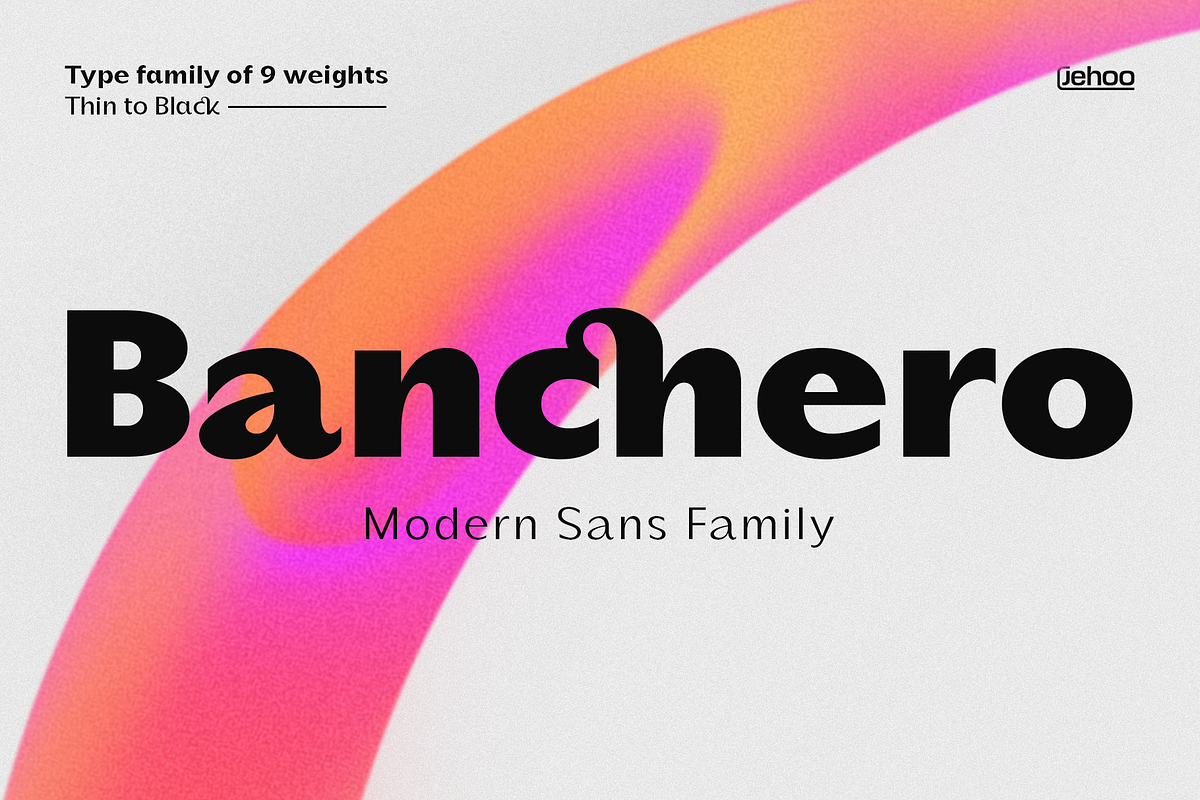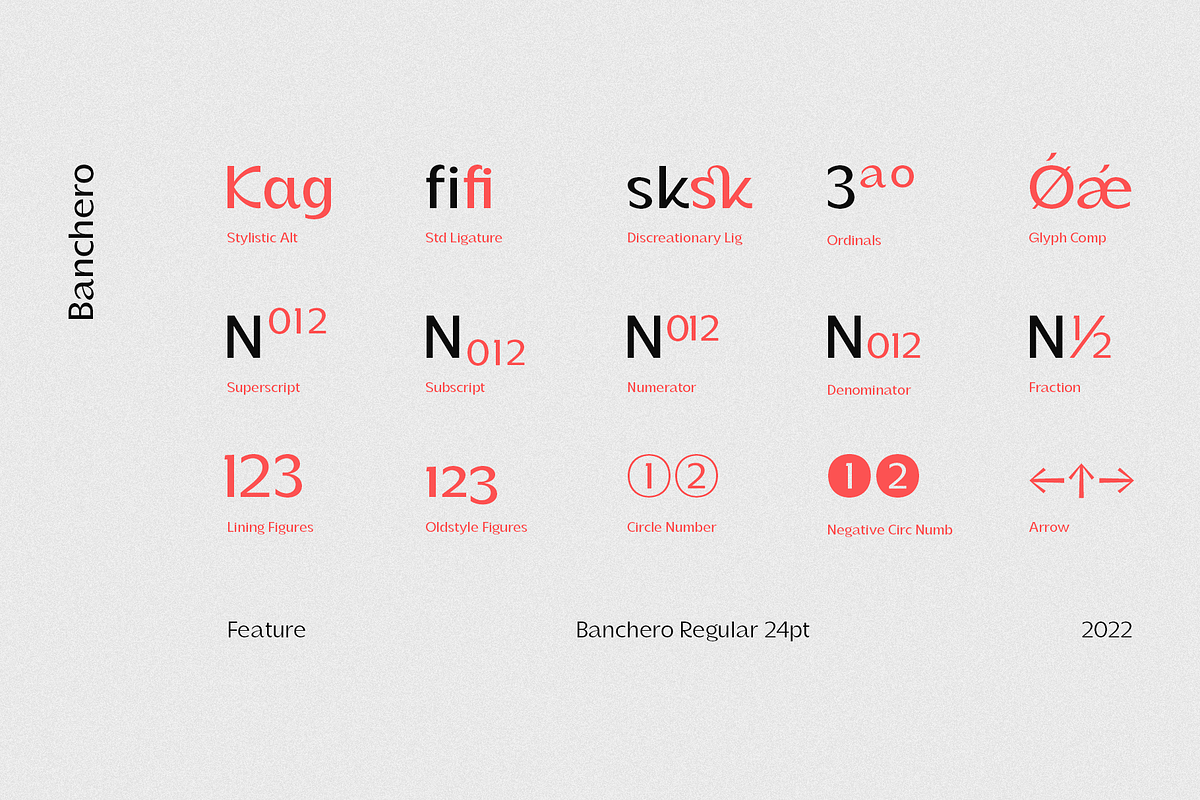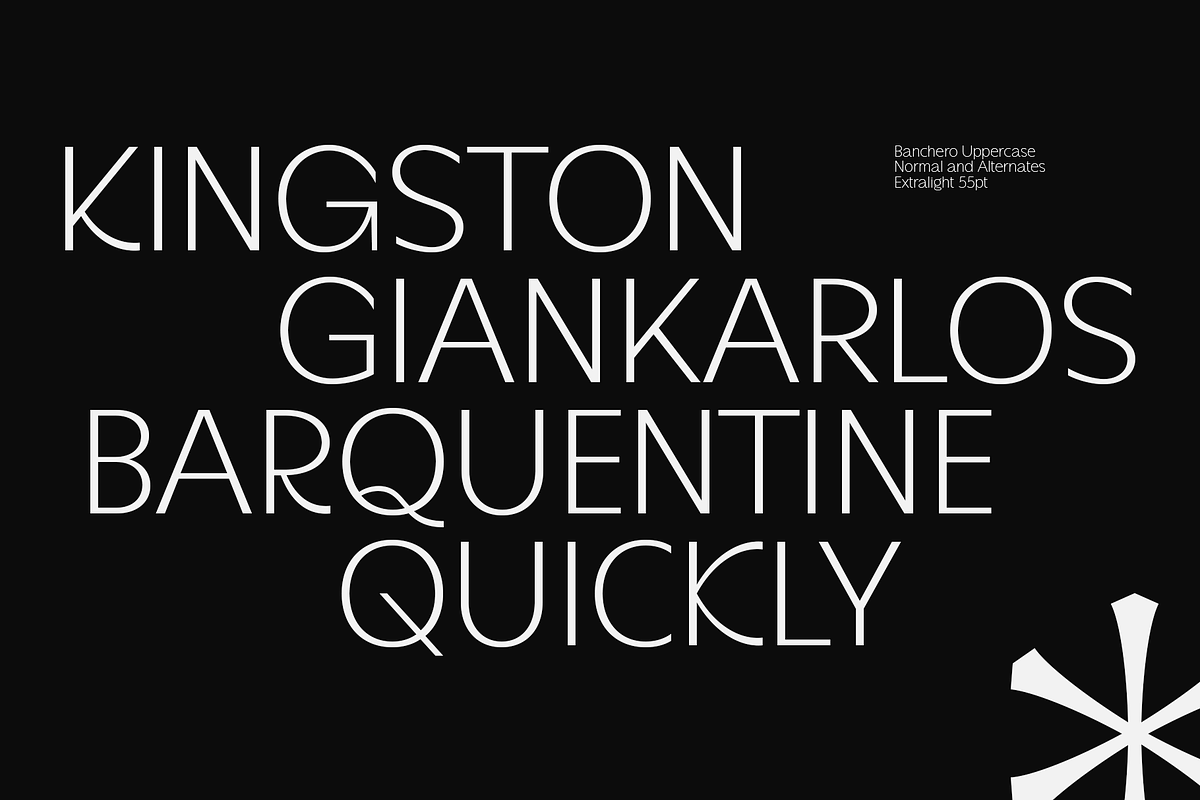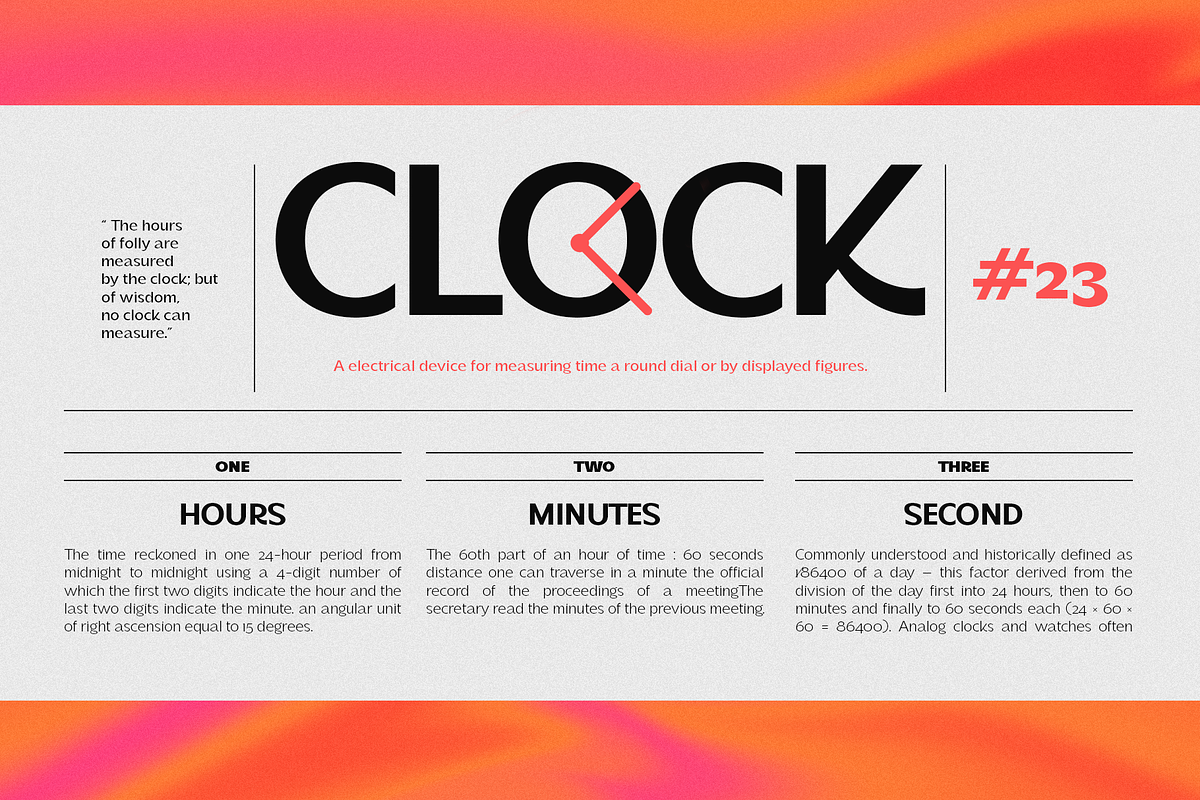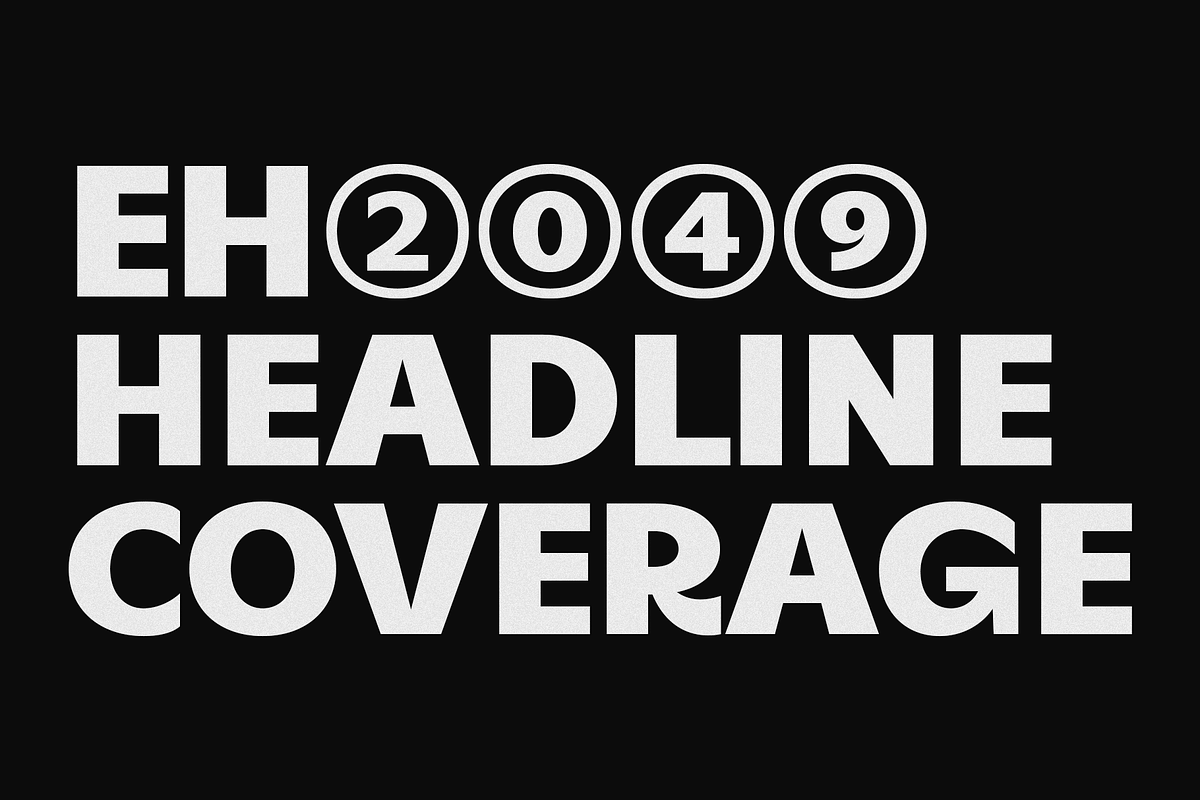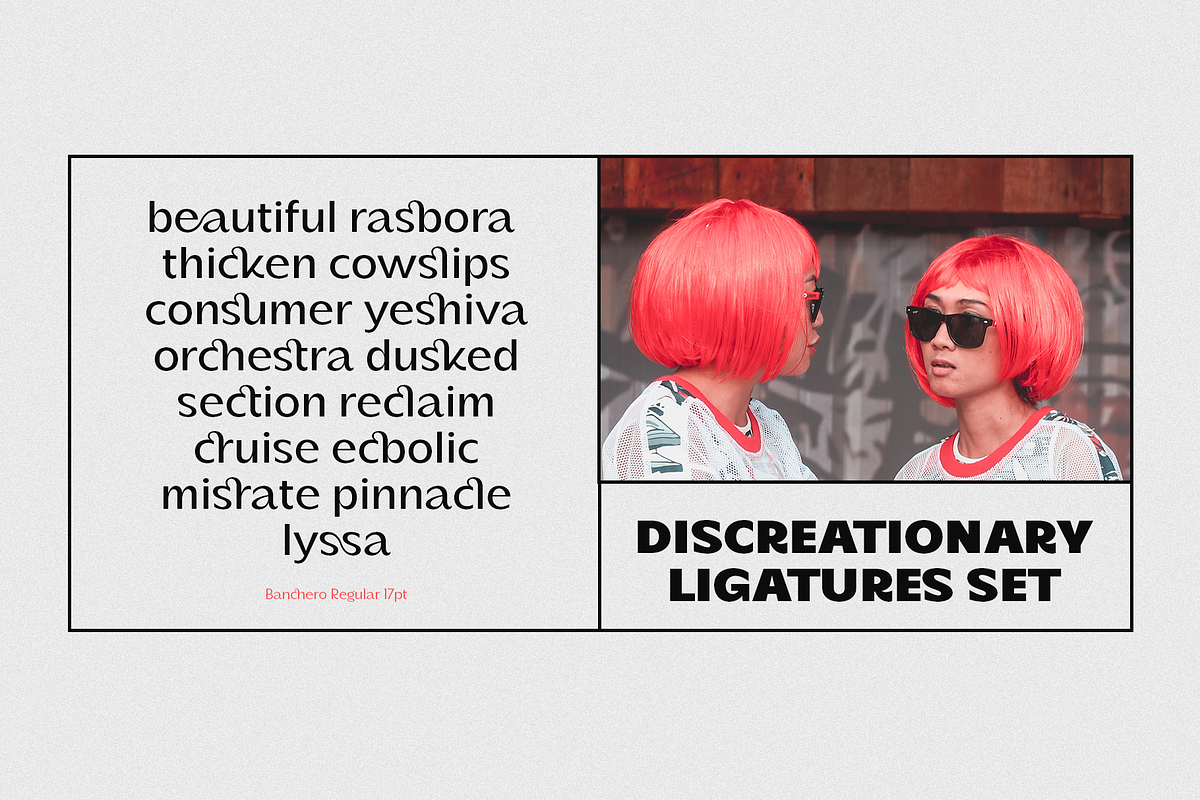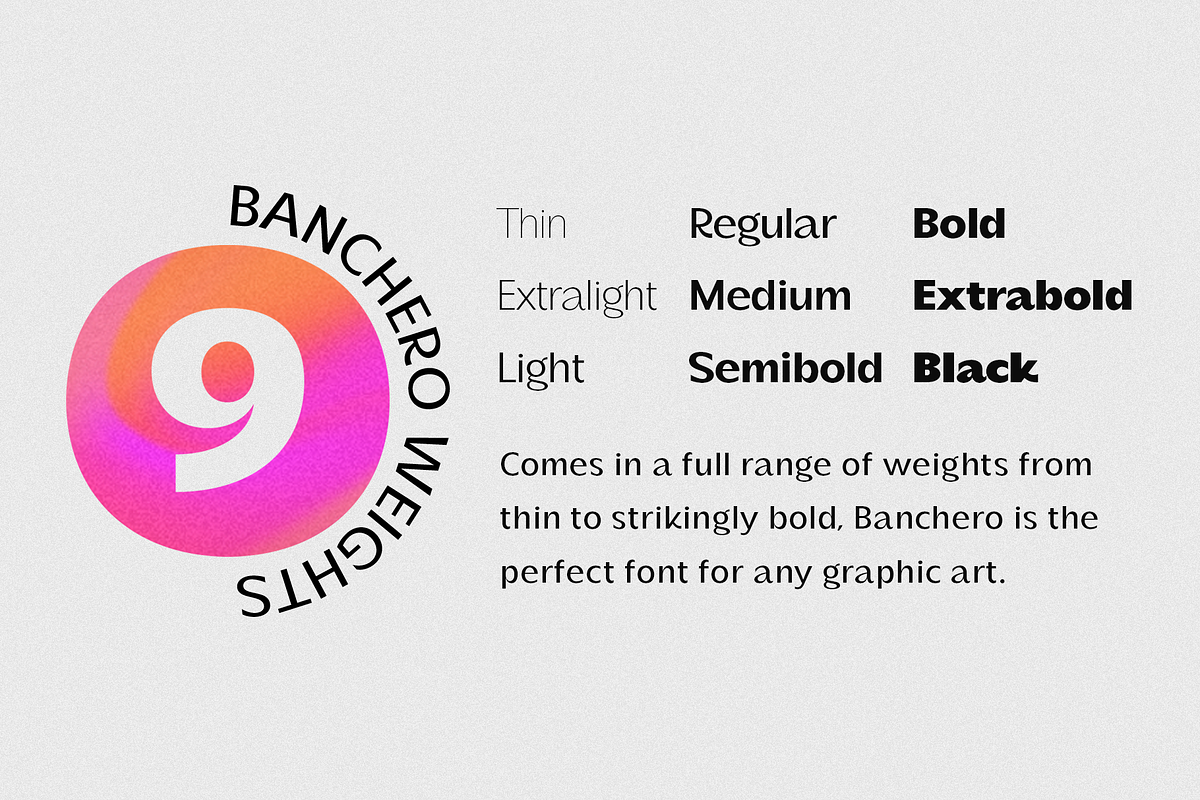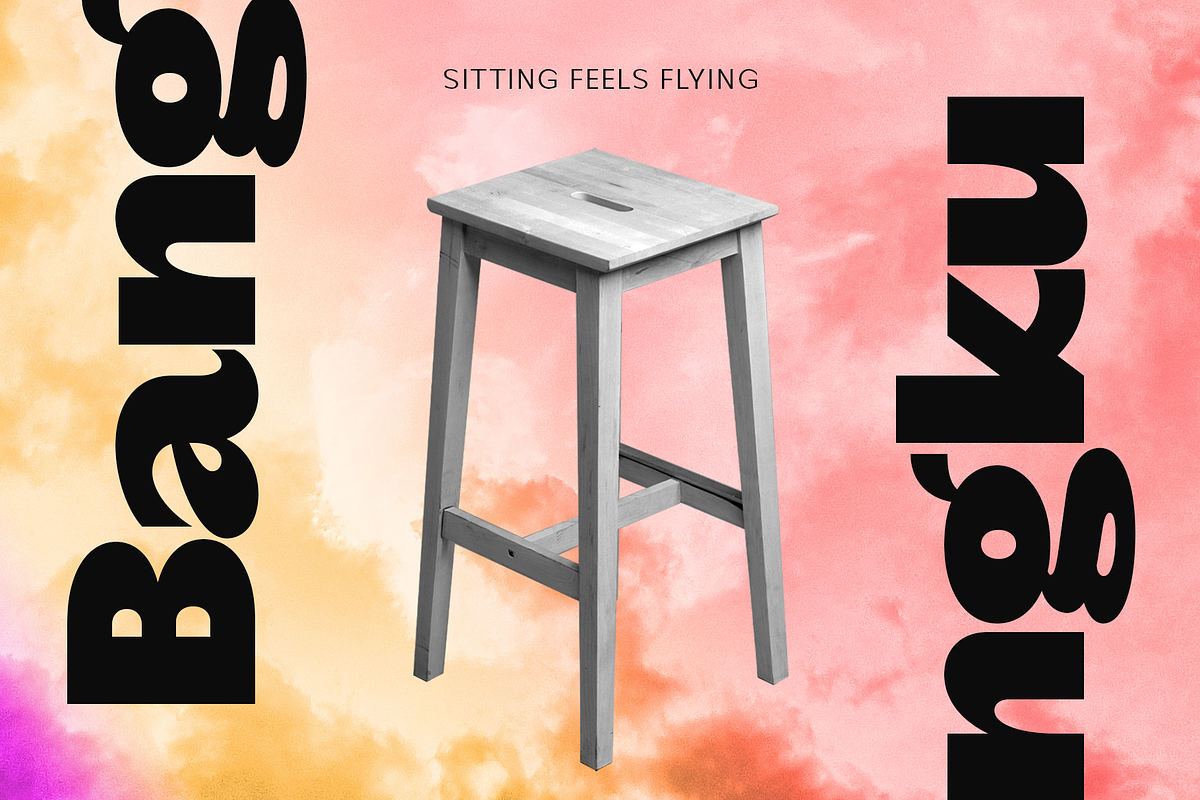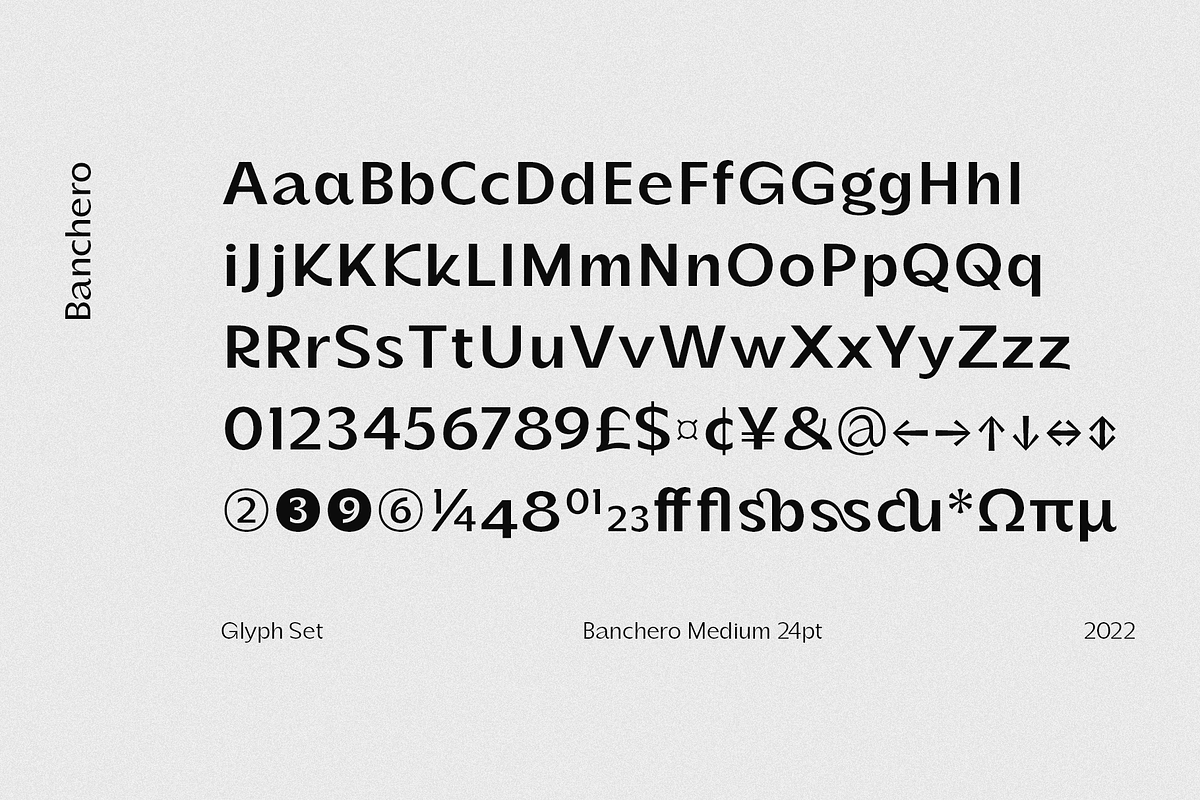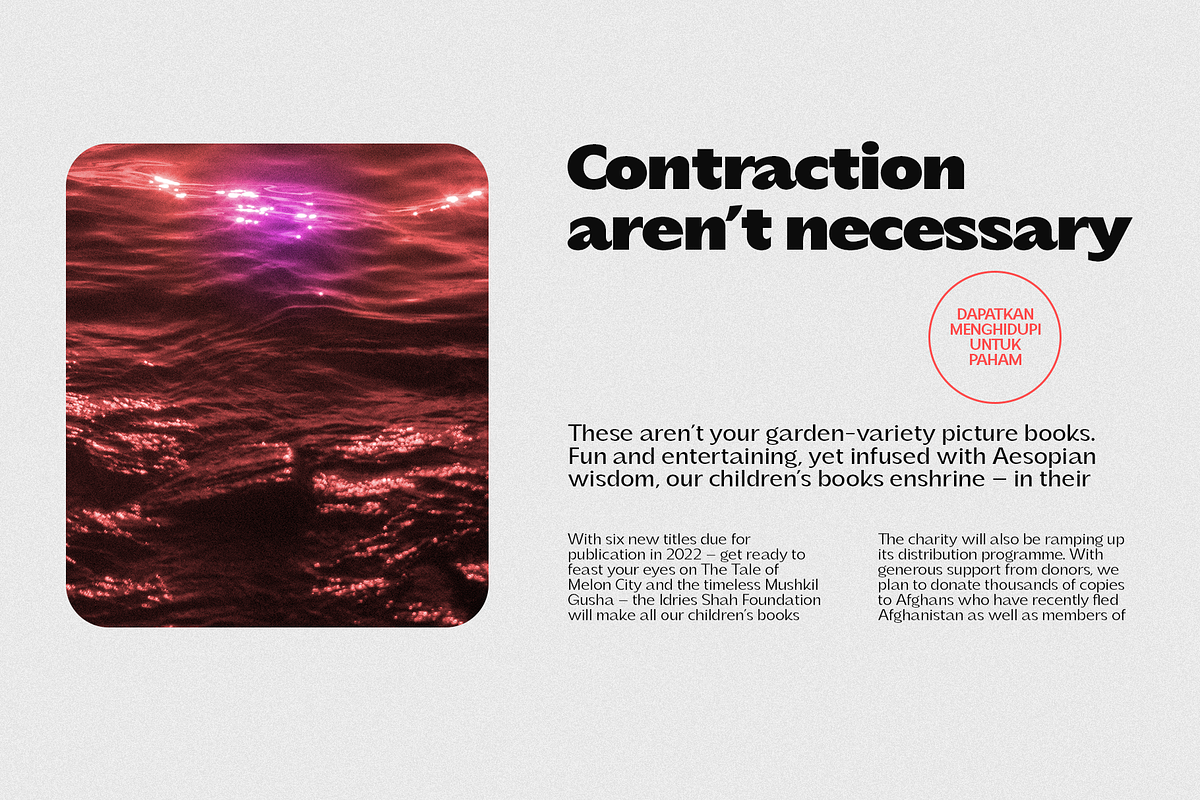
Banchero - Modern Sans Family
Banchero is inspired by charming vintage designs, bringing a relaxed and elegant feel to contemporary typography. The strong sans base features graceful discretionary ligatures between sensitive letters, so this font family is useful for all kinds of design needs from headlines to body, from posters to editorials, Banchero will stand out.
Its power and versatility also comes from its 9 complete weights and each weight contains over 520 glyphs. These weights are carefully crafted and cut to achieve the best desired result for your next design.